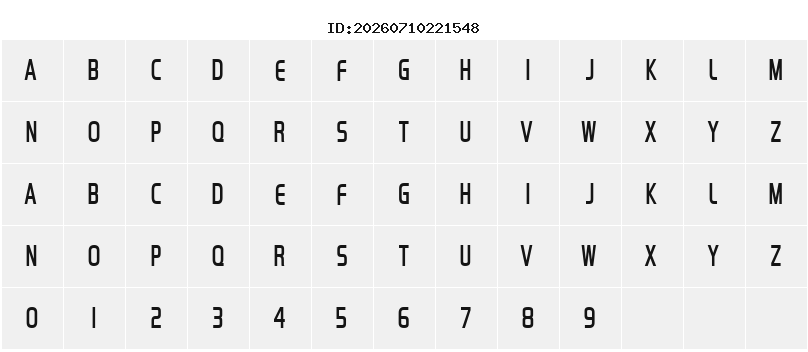
Handel Becker Compress Light Preview
About Handel Becker Compress Light.ttf
Handel Becker Compress Light.ttf is a modern, elegant sans-serif font designed for ultimate readability and visual harmony. Perfect for branding, headlines, web design, and print materials.